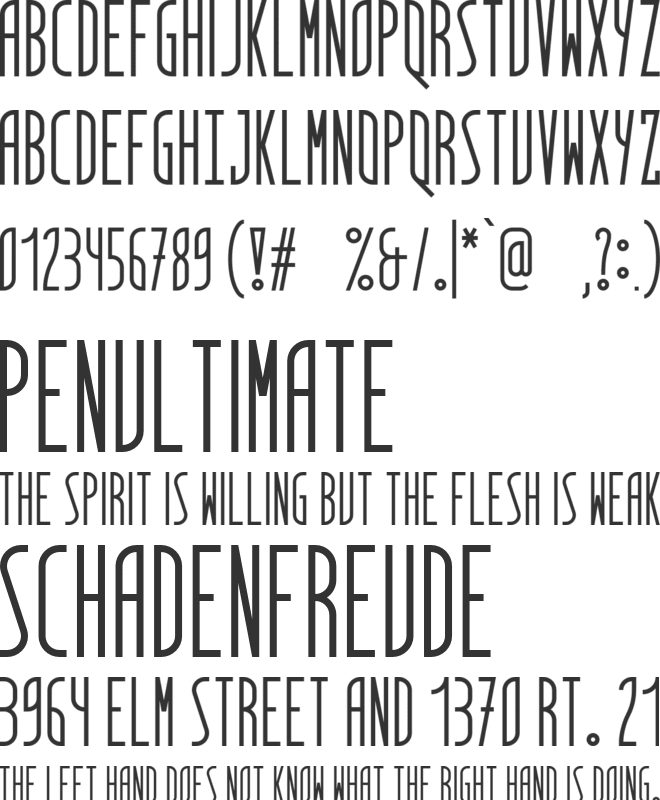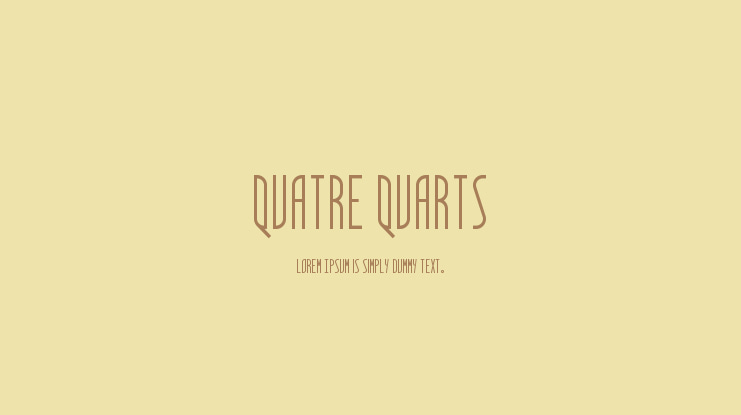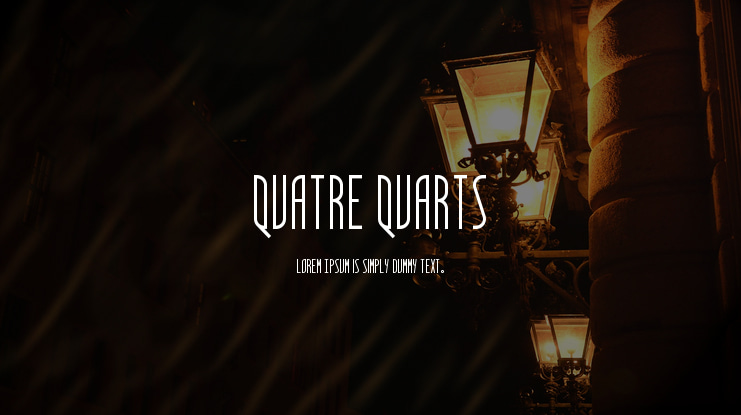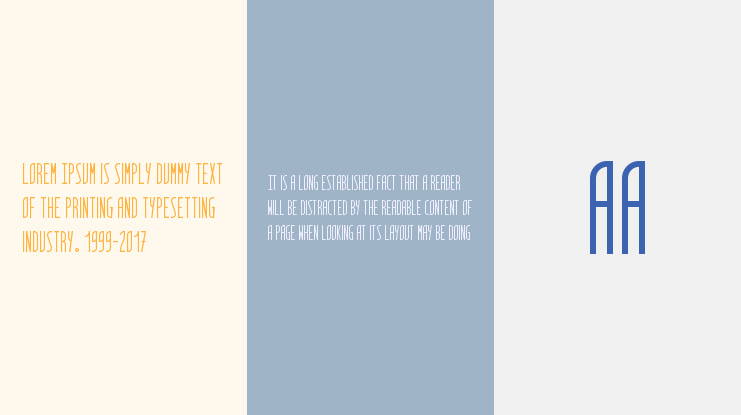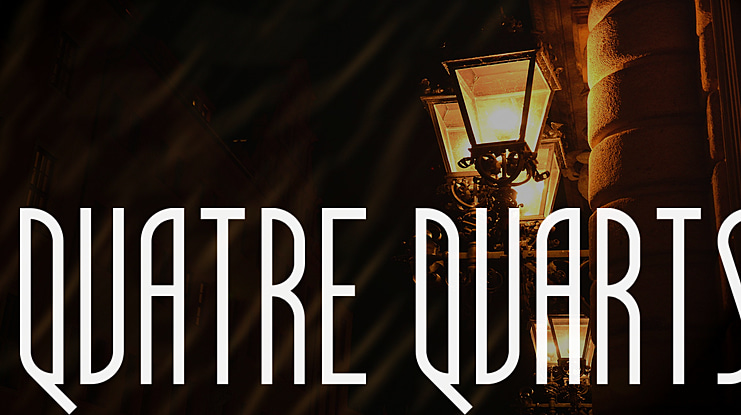
Quatre Quarts Font
Valentin François
Quatre Quarts is an all caps display font, with condensed monospace characters that were created following a simple rule : their width is 1/4 of their height, and the thickness of the lines is 1/4 of the width.
It has a kinda retro look because I was inspired by some Art Déco typefaces. "Quatre quarts" is also a traditional French cake, named after the proportions of its ingredients : 1/4 of flour, 1/4 of butter, 1/4 of milk and 1/4 of sugar. So I thought it could be a good name for this typeface.